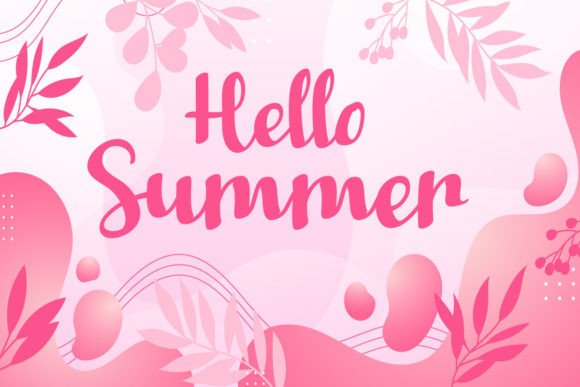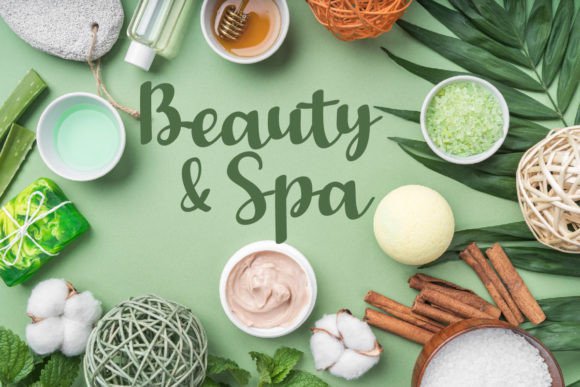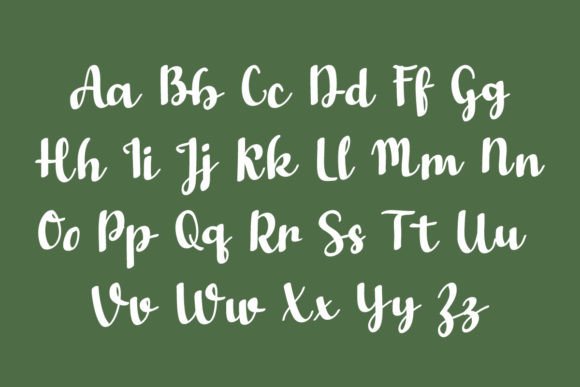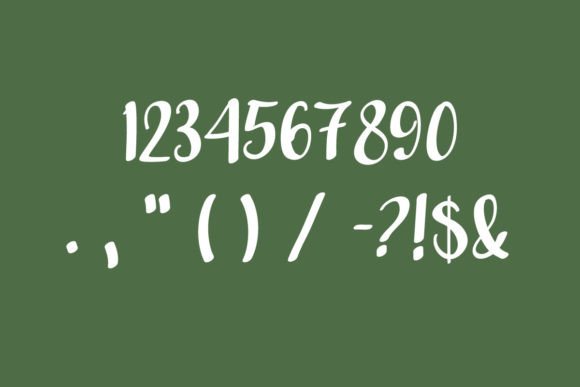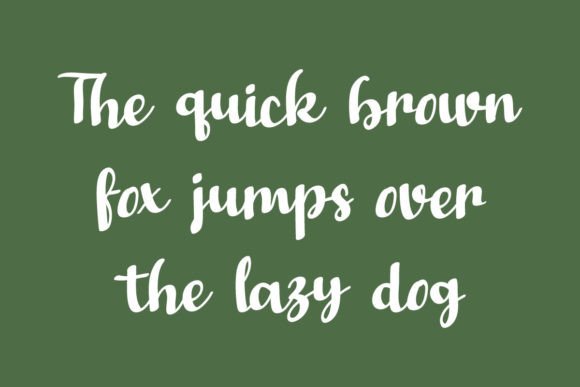
Discover the Elegance of Amelia Font: A Beautiful Script Font for Your Creative Projects
Are you a designer or crafter looking for a font that exudes elegance and sophistication? Look no further than Amelia Font, a stunning script font that is sure to add a touch of refinement to any project. With its sweeping curves and delicate swirls, Amelia Font is the perfect choice for those seeking a beautiful and graceful typographic solution.
The Unique Details of Amelia Font
Amelia Font is characterized by its unique details and intricate design. Each letter is carefully crafted to showcase beautiful swashes and flourishes, making it a true standout in the world of script fonts. The font’s elegant curves and refined lines evoke a sense of luxury and sophistication, making it ideal for high-end branding, wedding invitations, and other special projects.
What Makes Amelia Font So Special?
So, what sets Amelia Font apart from other script fonts on the market? Here are just a few features that make it a cut above:
- Unique Swashes and Flourishes: Amelia Font features beautiful swashes and flourishes that add an extra touch of elegance to your text.
- Intricate Design: Each letter is carefully crafted with intricate details that make it a true standout.
- Elegant Curves: The font’s elegant curves and refined lines evoke a sense of luxury and sophistication.
- Versatile: Amelia Font is perfect for a wide range of projects, from wedding invitations to branding and packaging.
How to Use Amelia Font in Your Projects
Amelia Font is incredibly versatile and can be used in a variety of creative projects. Here are just a few ideas to get you started:
- Wedding Invitations: Add a touch of elegance to your wedding invitations with Amelia Font.
- Branding and Packaging: Use Amelia Font to create luxurious branding and packaging for your business.
- Stationery: Create beautiful stationery, such as letterheads and business cards, with Amelia Font.
- Signage: Use Amelia Font to create eye-catching signage for your business or event.
Tips for Pairing Amelia Font with Other Fonts
When pairing Amelia Font with other fonts, it’s essential to choose fonts that complement its elegant and refined style. Here are a few tips to keep in mind:
- Pair with Sans Serif Fonts: Pair Amelia Font with sans serif fonts, such as Arial or Helvetica, for a clean and modern look.
- Pair with Serif Fonts: Pair Amelia Font with serif fonts, such as Times New Roman or Georgia, for a more traditional look.
- Use as a Headline Font: Use Amelia Font as a headline font to add a touch of elegance to your text.
In conclusion, Amelia Font is a beautiful and elegant script font that is perfect for designers and crafters looking to add a touch of sophistication to their projects. With its unique details, intricate design, and elegant curves, Amelia Font is sure to make a statement. Whether you’re creating wedding invitations, branding and packaging, or signage, Amelia Font is the perfect choice.